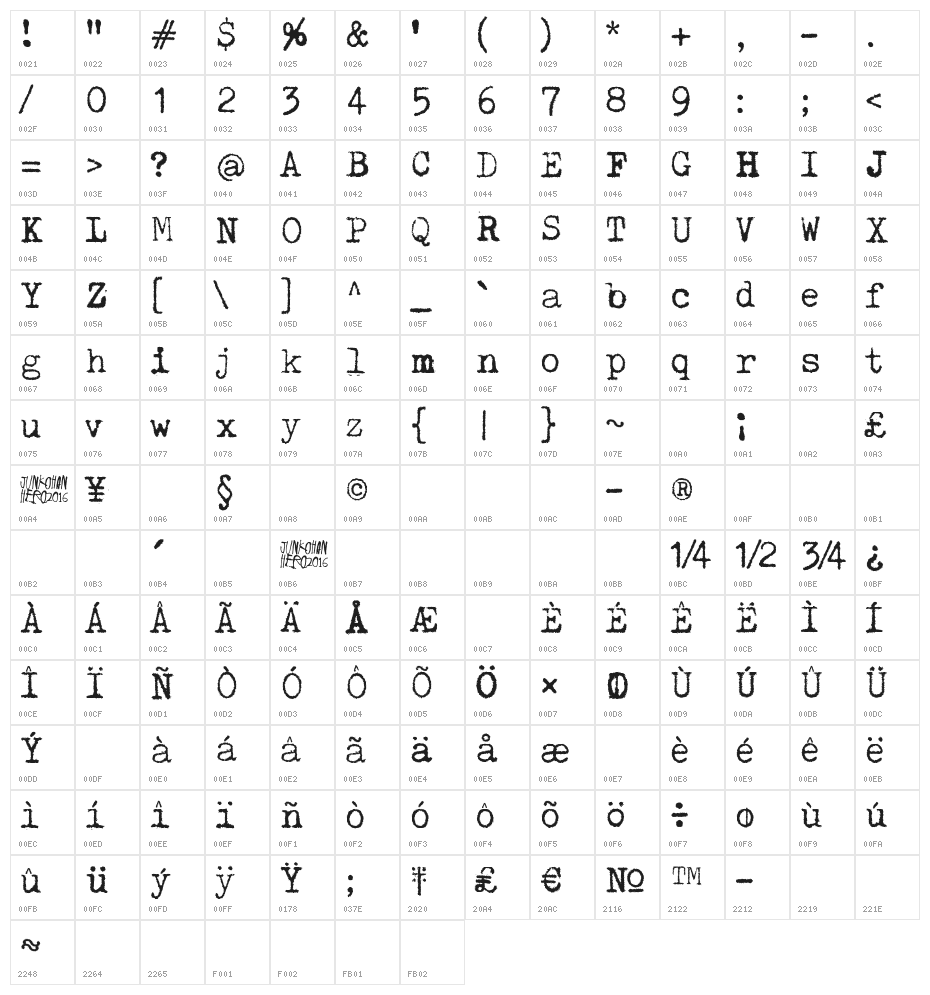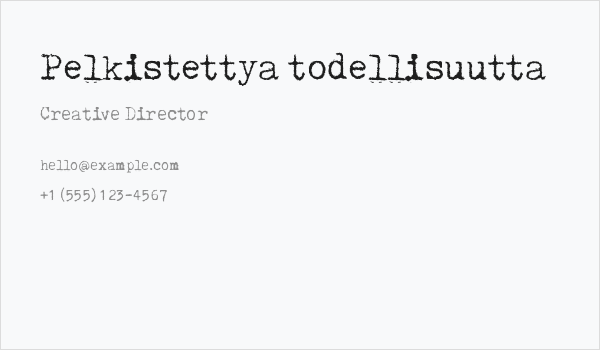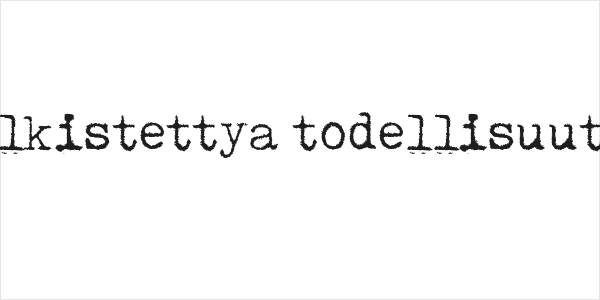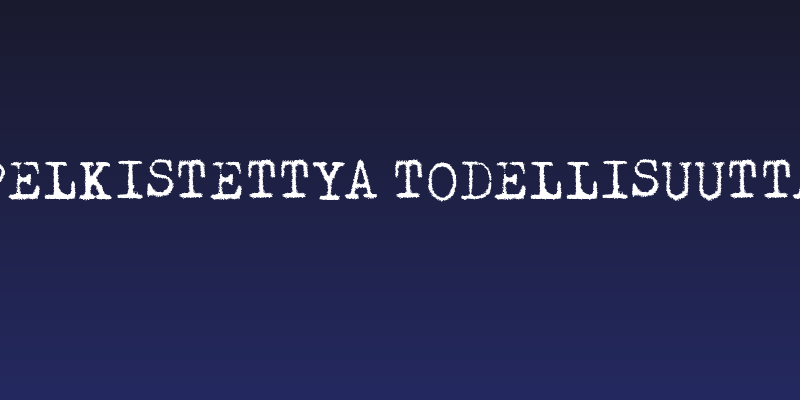
Pelkistettya todellisuutta Font
Pelkistettya todellisuutta Description
This font exhibits a rugged, textured appearance reminiscent of typewriter or vintage printing styles. The characters have a distressed look, with uneven edges and a slightly worn effect, giving it a unique, handcrafted feel. The uppercase and lowercase letters maintain a consistent style, with a moderate contrast between thick and thin strokes. The numerals and special characters follow the same aesthetic, ensuring uniformity across the font. This style is ideal for projects that require a touch of nostalgia or a rustic, authentic vibe.
| Proposed Projects | Ideal for vintage-themed designs, posters, book covers, or any project seeking a rustic, authentic look. |